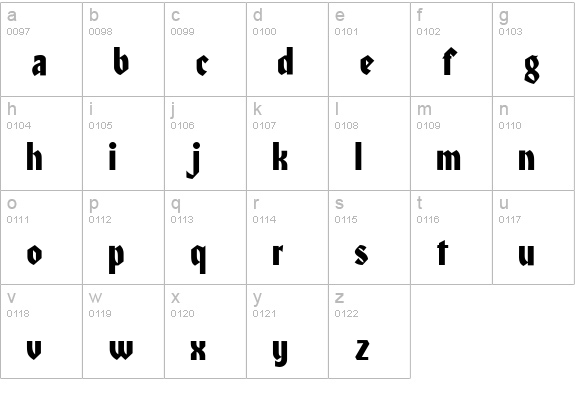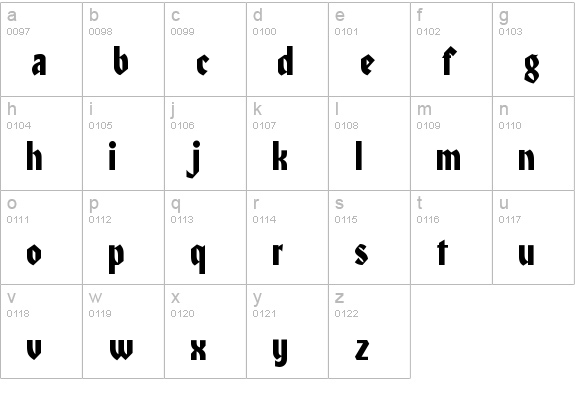
Honcho-Regular Font Details
Honcho-Regular is the standard, neutral variant in the Honcho typeface family \xE2\x80\x94 well suited to general body text, paragraphs, and standard typographic work.
Honcho-Regular is a versatile and modern font that exudes a sense of confidence and authority. With its clean lines and bold presence, this typeface is perfect for headlines, logos, and other design projects that require a strong visual impact. The sleek and professional appearance of Honcho-Regular makes it a popular choice for branding and corporate communication. What sets Honcho-Regular apart is not only its striking design, but also the fact that it is available for free download at FontsMarket.com. This means that designers and creatives can access this high-quality font without any cost, making it a valuable addition to their font library. Whether you're working on a personal project or a commercial design, Honcho-Regular offers a stylish and impactful solution that is easily accessible to all.